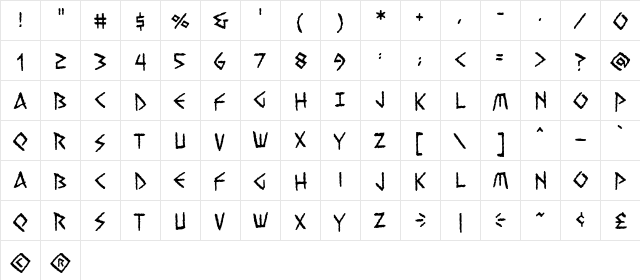
Vengeful Gods BB Regular
| Foundry | Nate Piekos. Blambot.com |
| Designer | Nate Piekos |
Design Context for Vengeful Gods BB Typeface
Vengeful Gods BB is a composed and adaptable typeface that performs quietly and consistently across a wide range of design contexts.